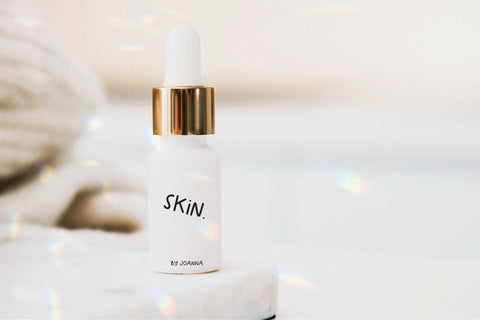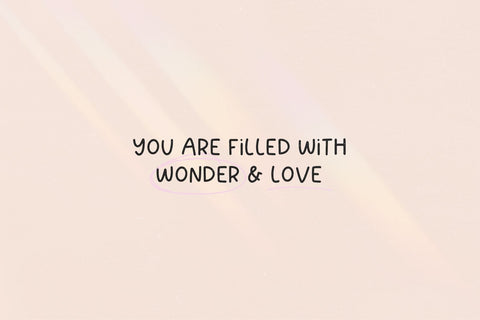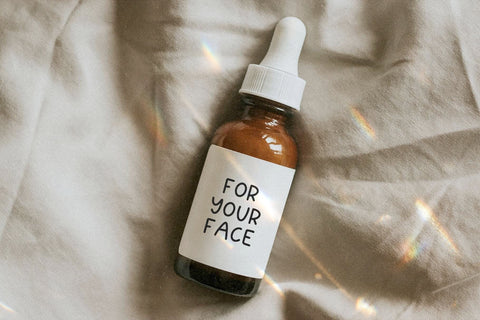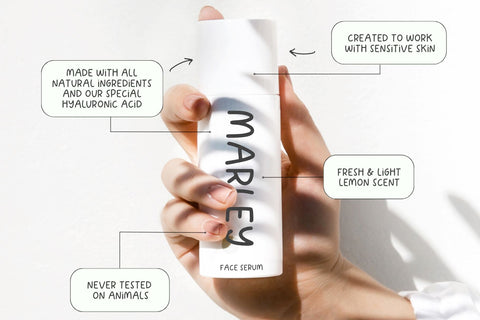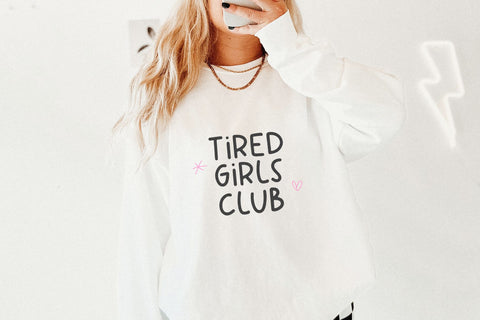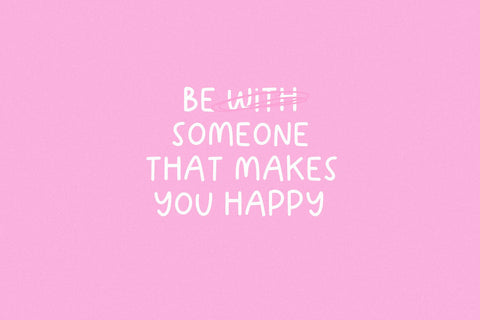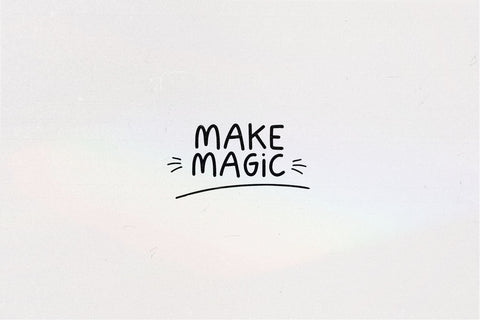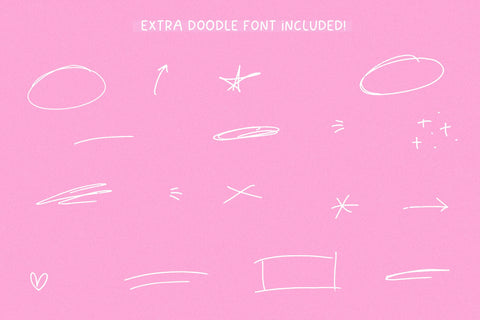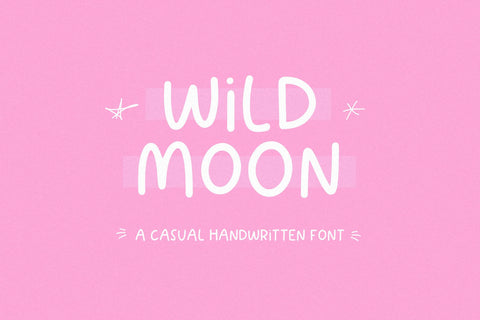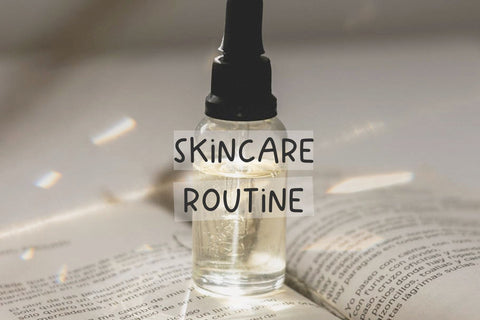
Wild Moon - Handwritten Font with Extras!
Wild Moon is a casual handwritten font.
This font is perfect for branding, logos, marketing, quotes, packaging, social media and more!
Use Wild Moon Extras to dress up your text!